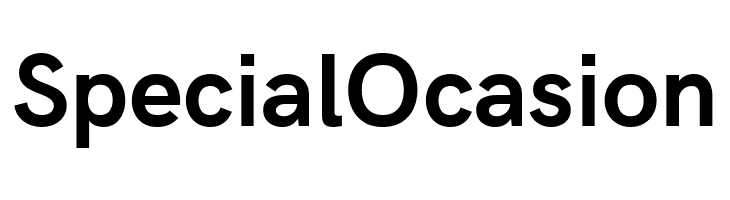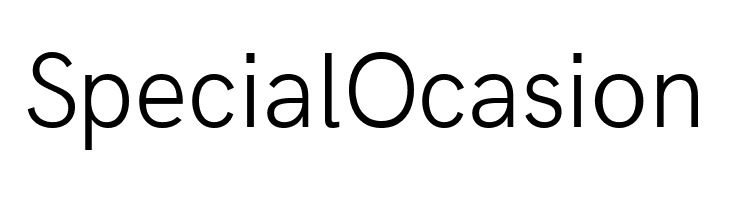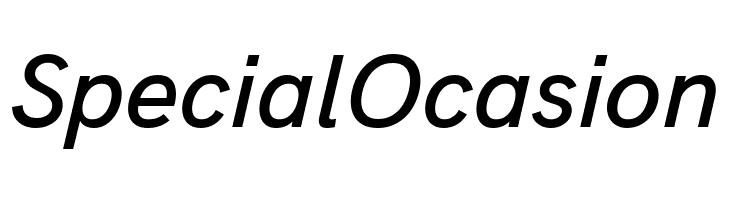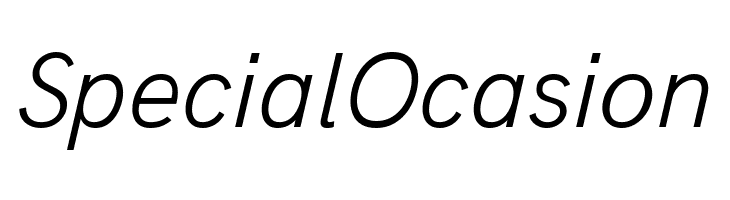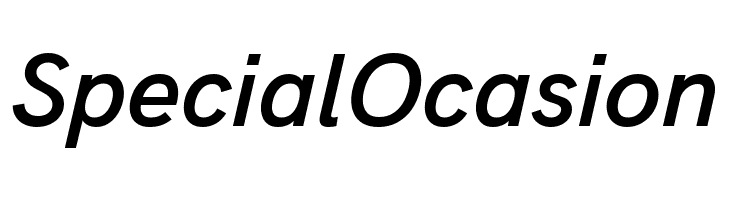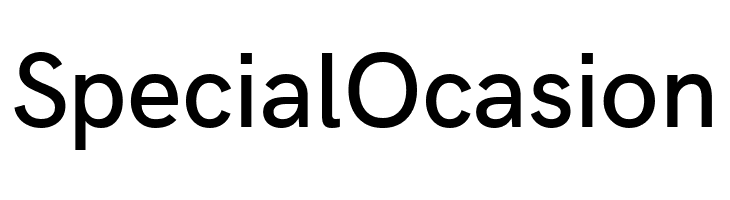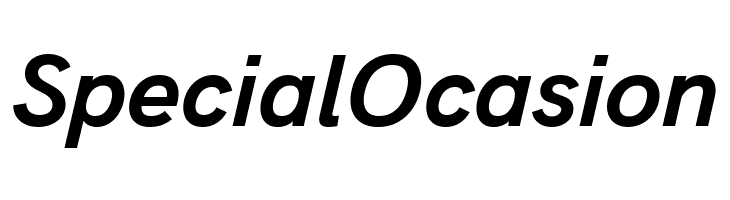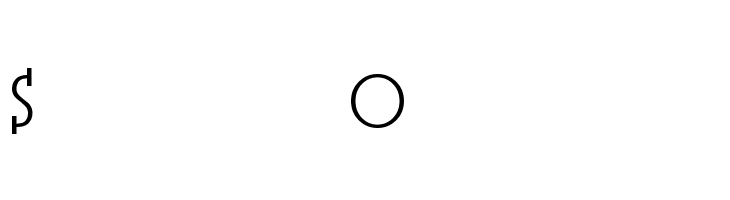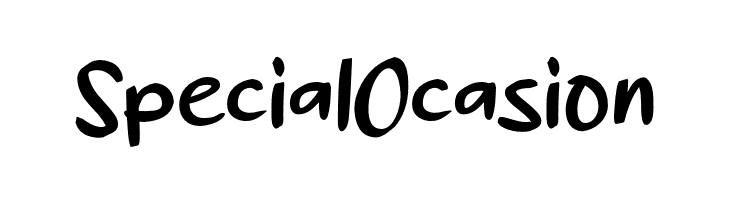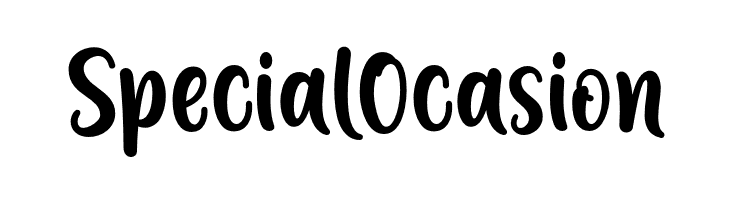
• AC3 Hearts2
• Acacia 23
A bold, brush-like font with an expressive, hand-drawn style.
• Academic M54
A bold, geometric font with a strong, authoritative presence.
• Academiury-ITV
• Academiury-ITV Bold
• Academiury-ITV Bold Italic
• Academiury-ITV Italic
• Academy Filled 3D Regular
A bold, 3D font with a filled interior and strong outline, perfect for impactful headlines.
• Academy Regular
A bold, outlined font with a collegiate, three-dimensional style.
• Academy!"
• AcademyKiller
A playful, bold, hand-drawn font with a whimsical and artistic style.
• AcademyOpti-Bold
A bold serif font with strong strokes and a classic yet modern appeal.
• AcadHoCTT
• Acadian!"
• Acakadut
A bold, playful handwritten font with a casual and dynamic style.
• Acakadut
A playful, bold handwritten font with dynamic strokes.
• ACalling
A playful, bold handwritten font with rounded strokes and a friendly vibe.
• AcapelaDEMO
A playful, whimsical script font with a handwritten feel.
• Acapulco Night Fever
Bold, energetic handwritten script with slanted, expressive strokes.
• Acardia-Regular
A lively and expressive handwritten font with fluid, cursive letterforms.
• Acari Sans
A clean and modern sans-serif font with uniform strokes and balanced spacing.
• Acari Sans Bold